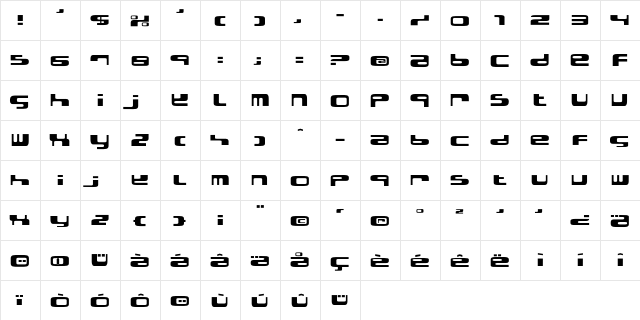
BDElectrobazar Regular
Design Context for BDElectrobazar Typeface
BDElectrobazar is a composed and adaptable typeface that performs quietly and consistently across a wide range of design contexts.
Pro Tip: Use BDElectrobazar in both headline and body roles to test its range before committing to a single application.